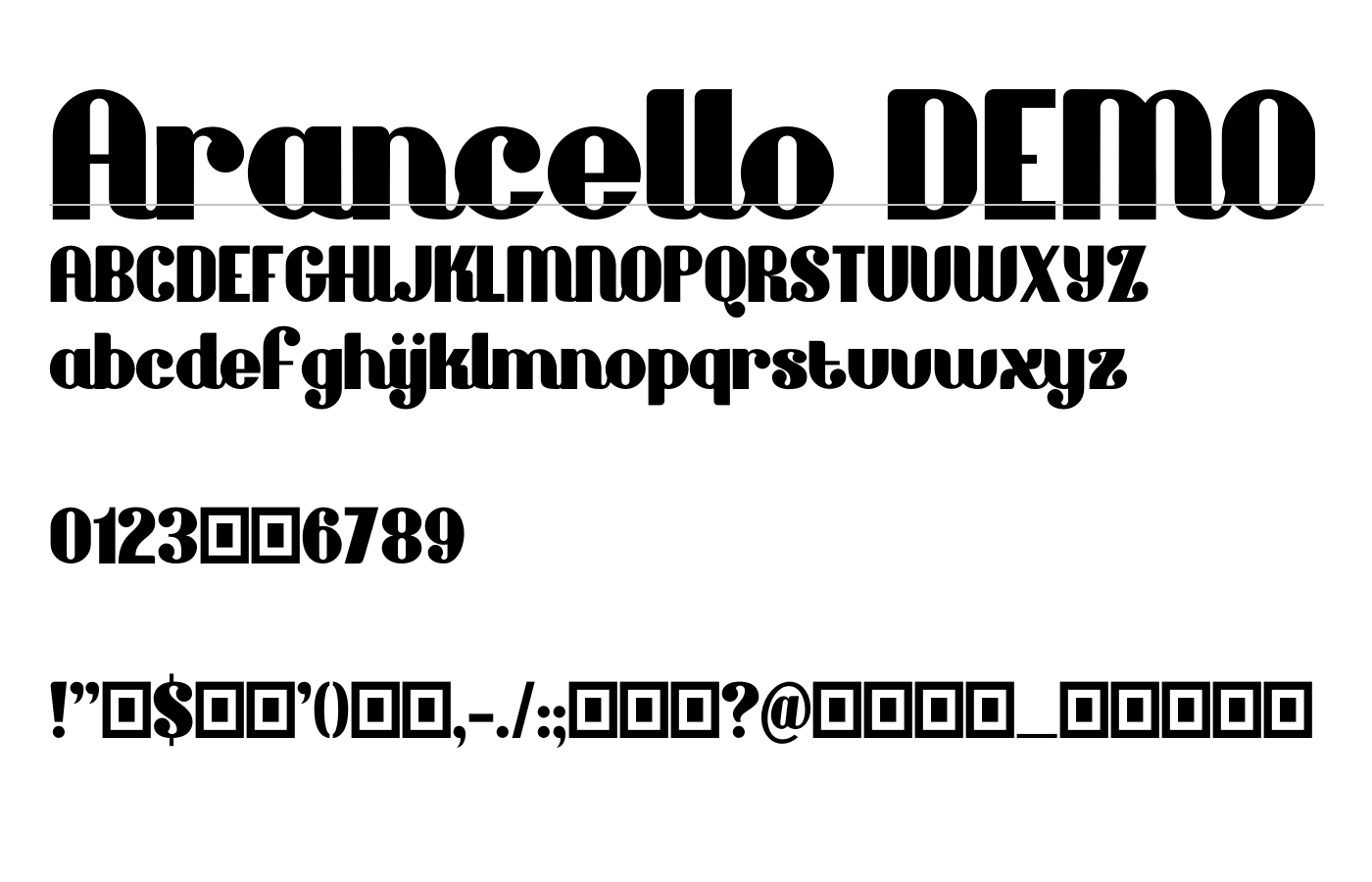
Arancello DEMO is a bold, condensed serif font with a strong, vintage feel characterized by high contrast between thick and thin strokes and unique, rounded serifs. Its stylized letterforms, including distinct single-story lowercase 'a' and intricate details like the curved tail on the 'Q,' lend it an elegant yet playful personality, making it ideal for eye-catching headlines, logos, and branding projects that seek a retro-modern vibe. This font shines in display use where its dramatic style can add charm and character without overwhelming the design.
Arancello DEMO Font
About Arancello DEMO Font